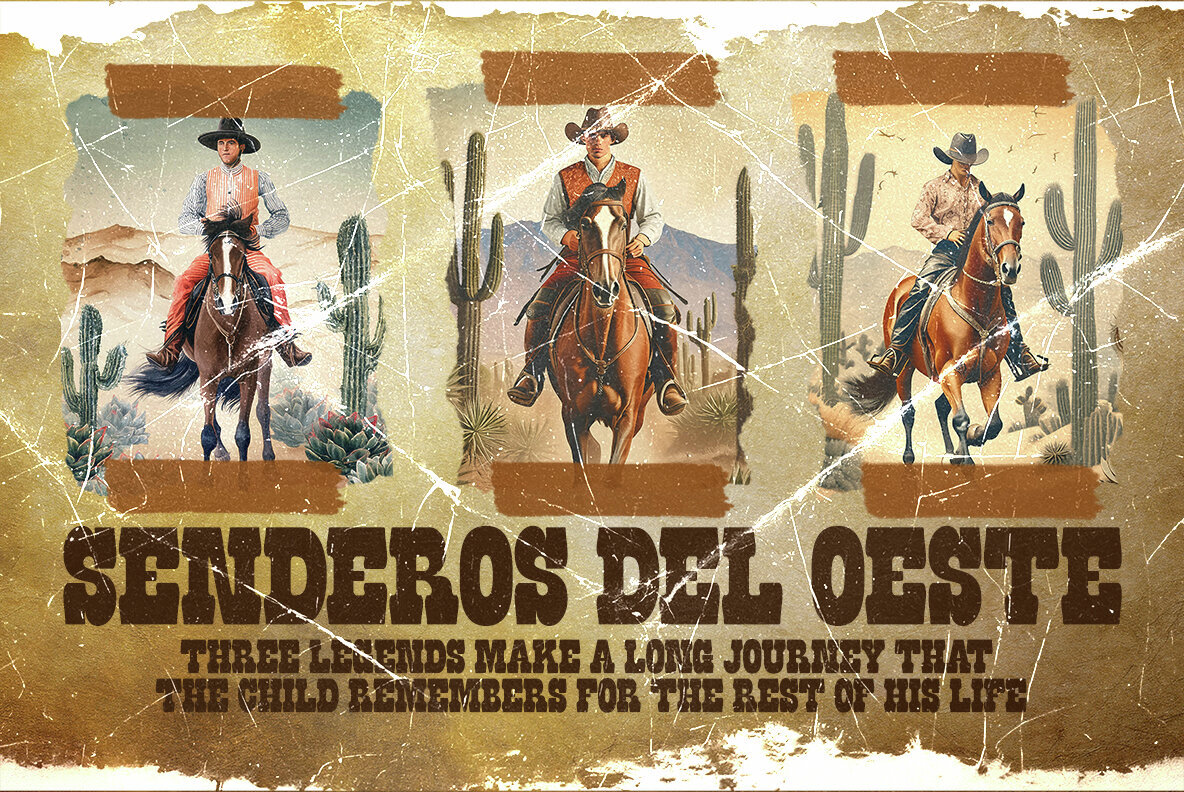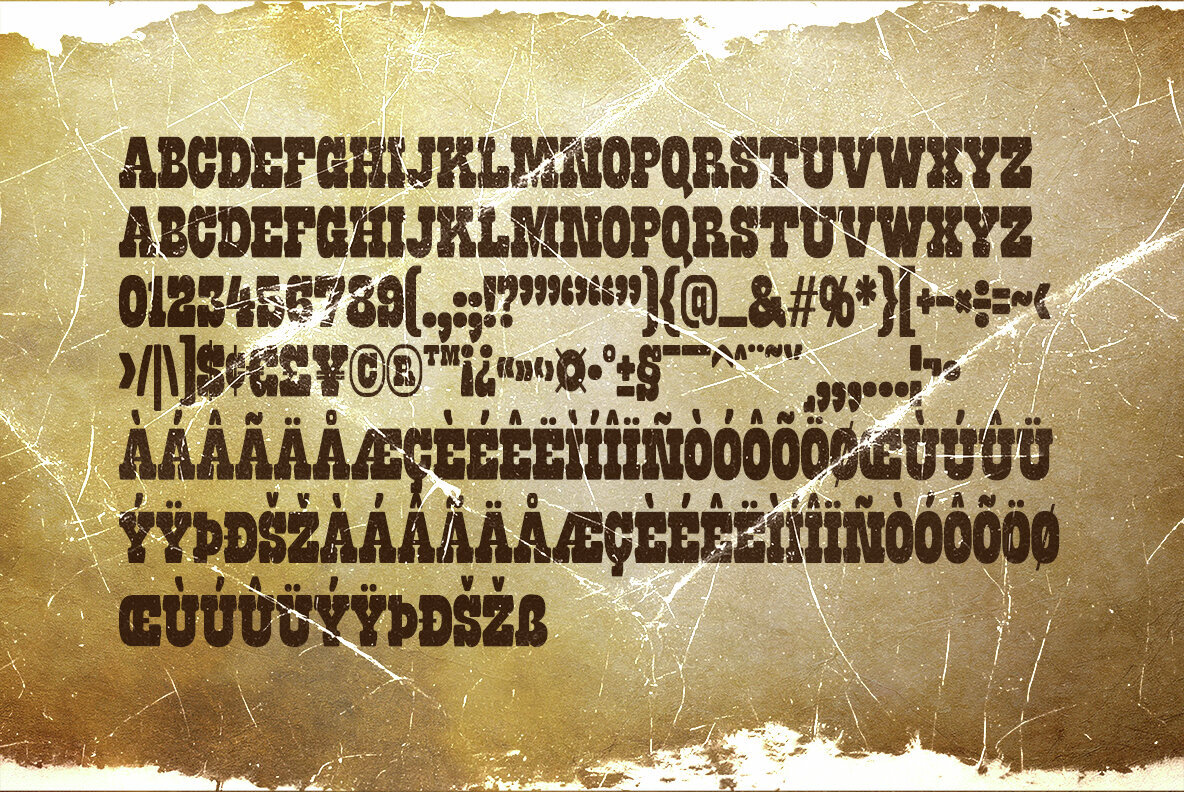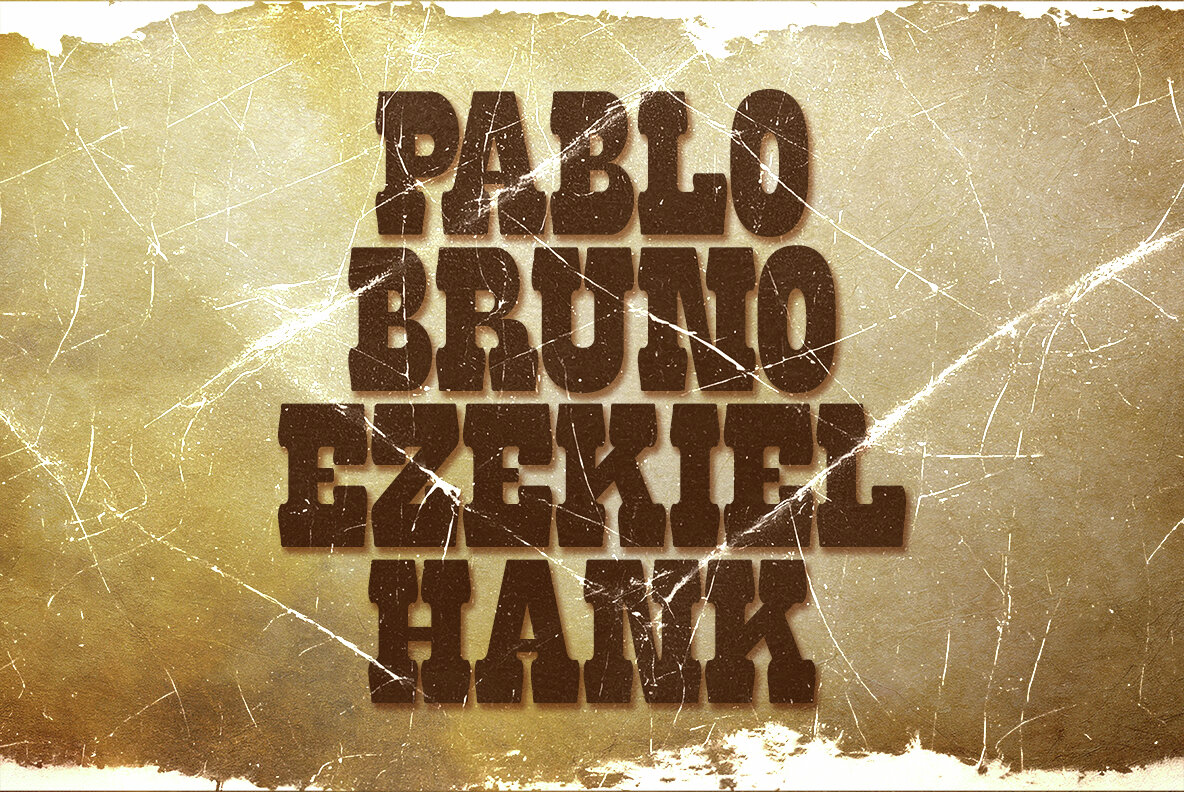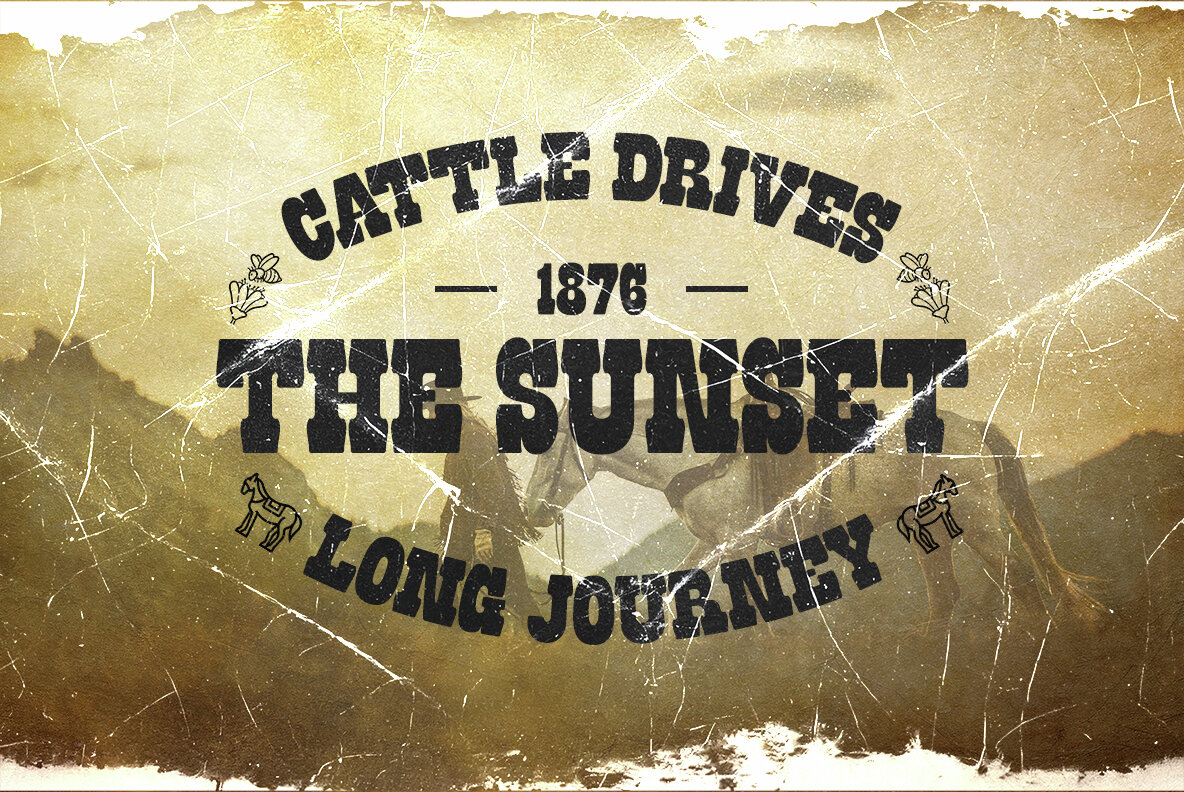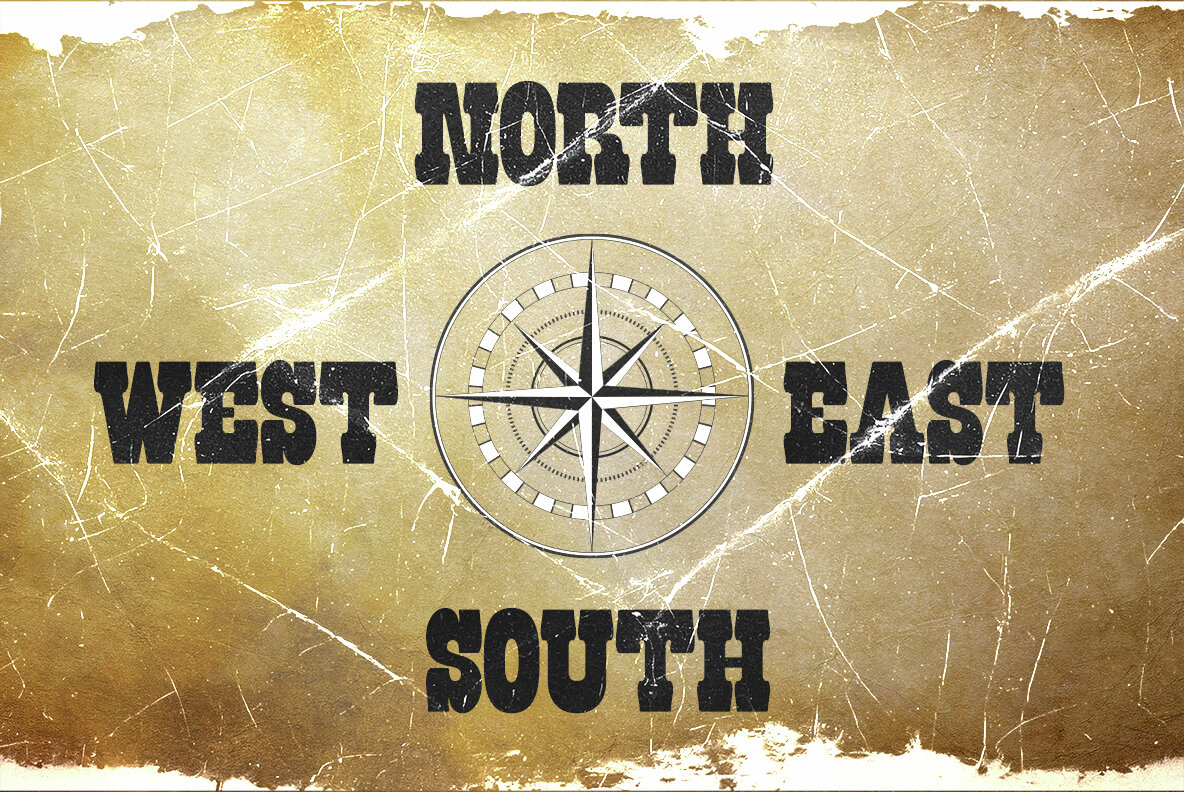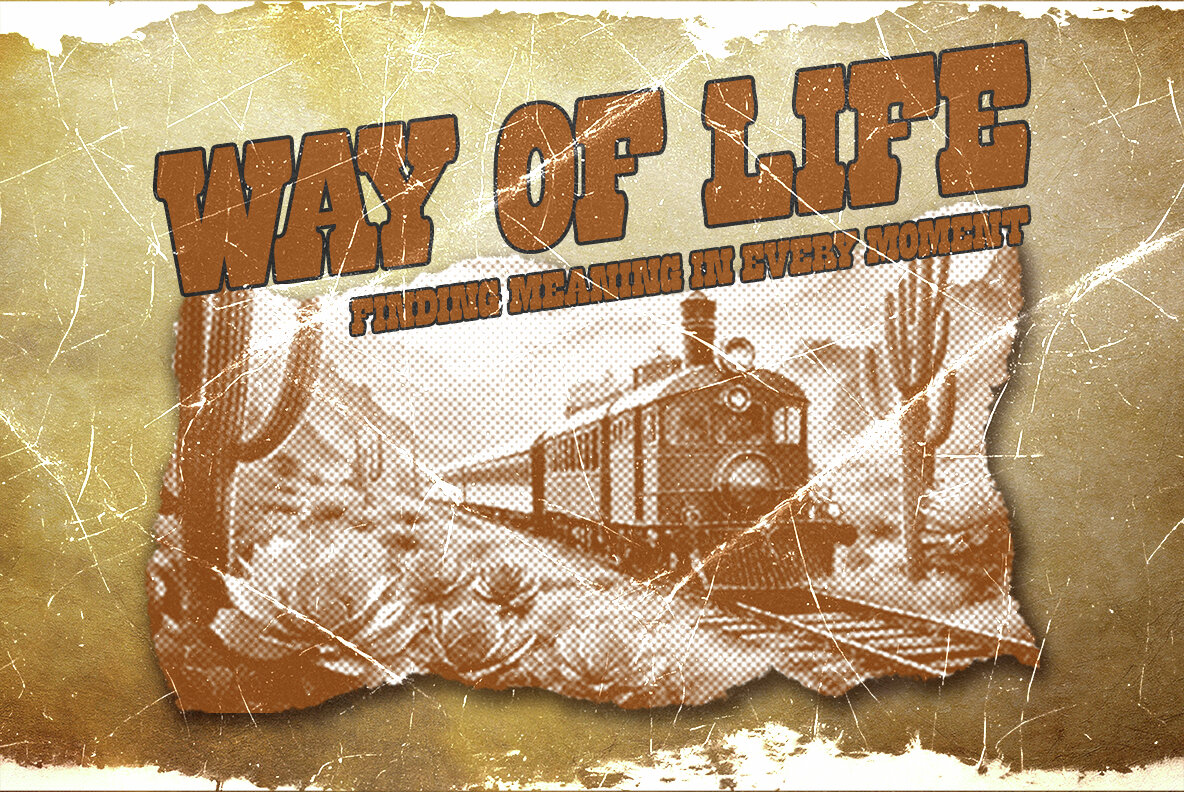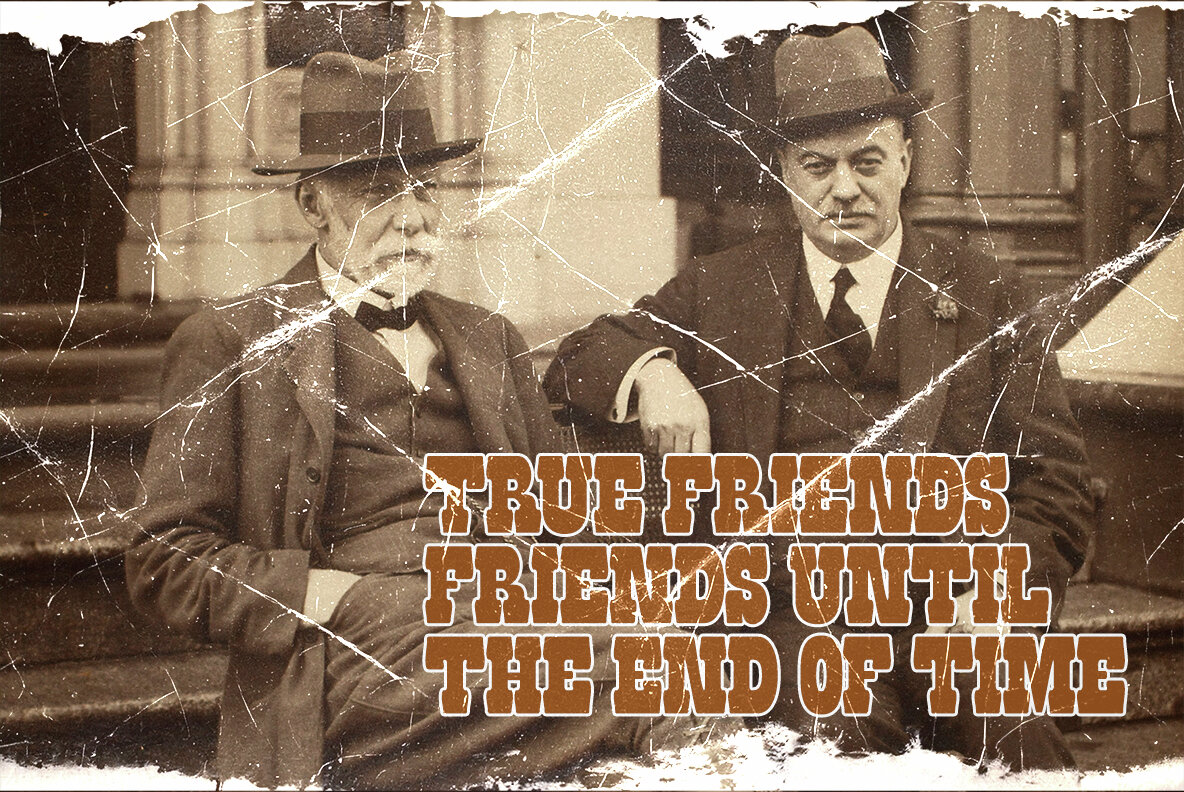
Bozrog Font
Bozorg Regular
Bozorg a bold slab serif display font that captures the essence of the Old West with a modern twist. Inspired by various aspects of vintage and retro design, "Bozorg" brings back the timeless charm of Western and cowboy styles, now experiencing a resurgence in popularity. With its strong, slab-serif structure and bold appearance, "Bozorg" exudes a rugged yet refined character. This font is perfect for a variety of applications, including branding, publishing, film titles, advertising, and corporate projects. Its unique blend of vintage aesthetics and contemporary design makes it a versatile choice for creating impactful and memorable visuals. "Bozorg" stands out with its Western-inspired elements, reminiscent of an era where typography was bold and made to last. The retro influences add a touch of nostalgia, while its slab serif style ensures it remains relevant and striking in modern design contexts.